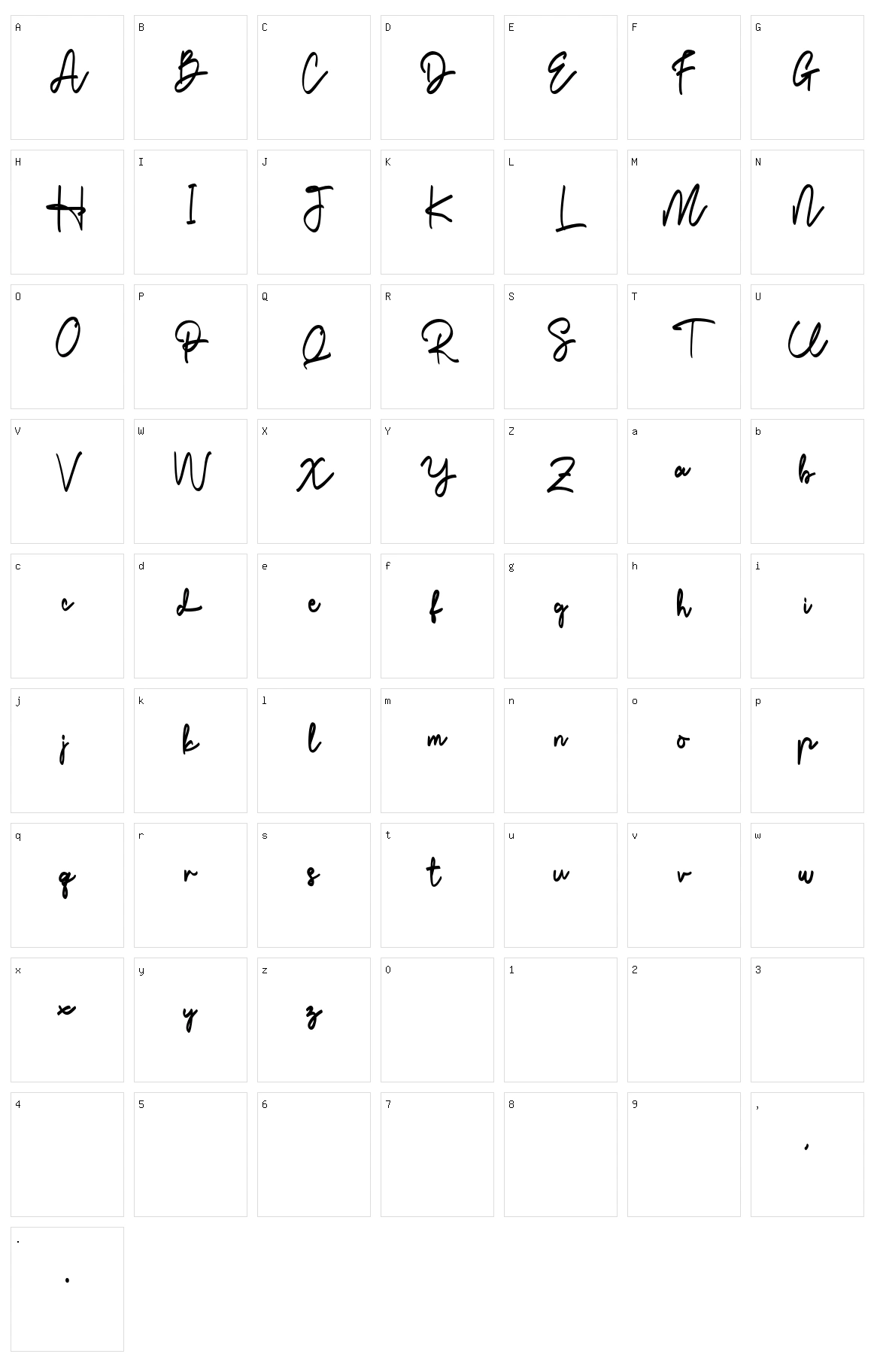
The free font Darkland is carefully designed by DDLab, showcasing a thoughtful balance of creativity and usability and falls under the Script font style. When you download the ZIP file, it contains only 13.8 KB of font files, making it lightweight and quick to download. Please review the license details below to understand permitted usage and distribution rights. If license information is not available, we recommend using this font for personal projects only or contacting the author directly for commercial usage permissions.